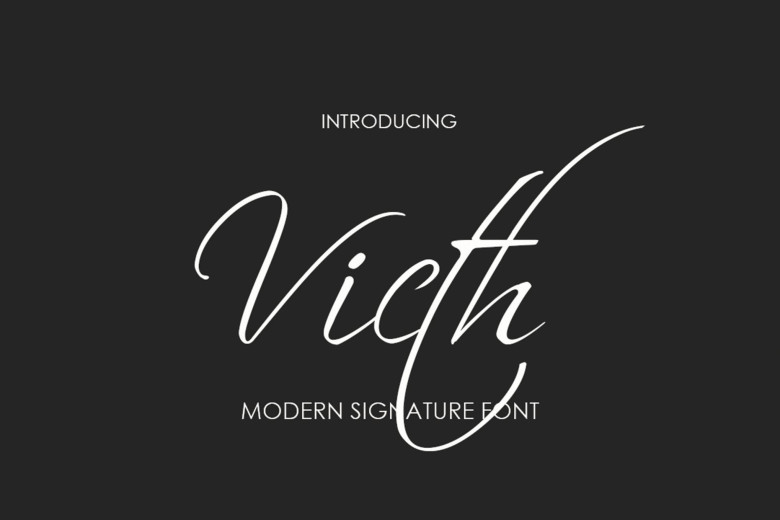
Victh Signature Font
Victh is a relaxed handwritten font – in a signature style. Victh a very beautiful and interesting script, and comes with a perfect line for use for various purposes. Like titles, signatures, logos, correspondence, wedding invitations, letterheads, nameplate, labels, bulletins, posters, badges, Branding, Greeting Cards, etc.